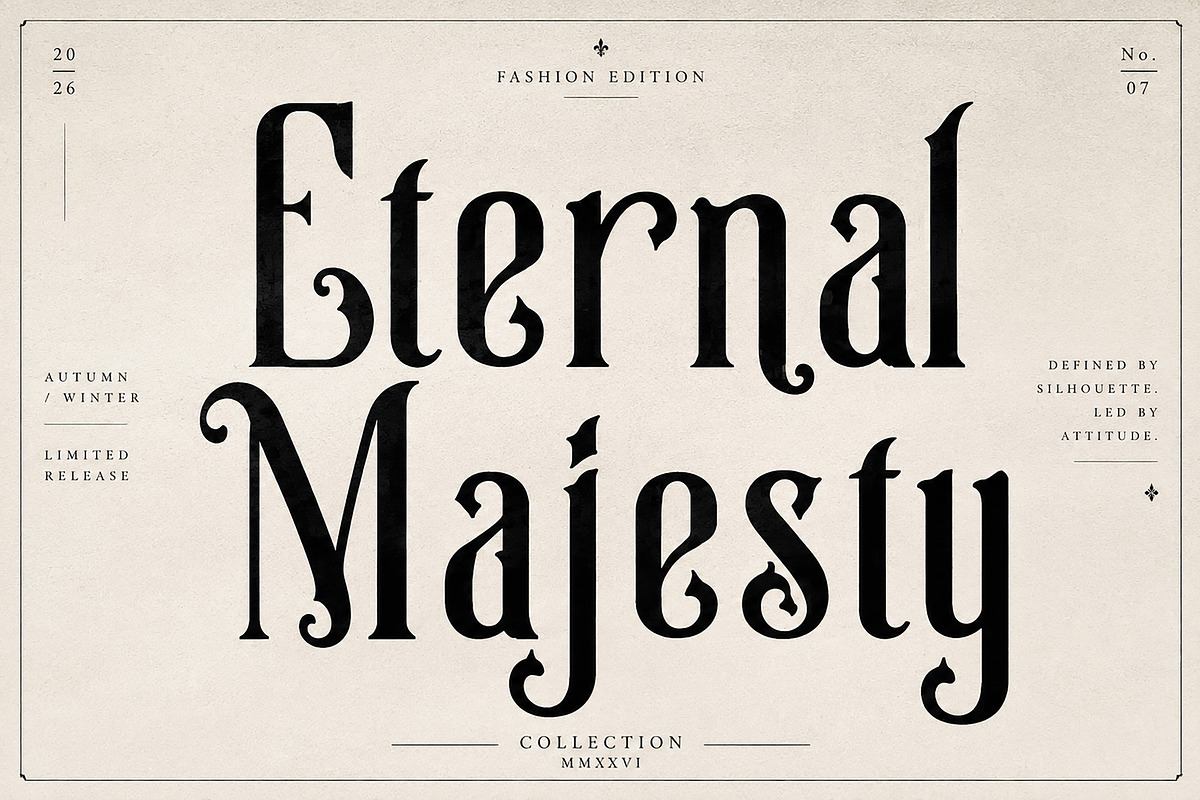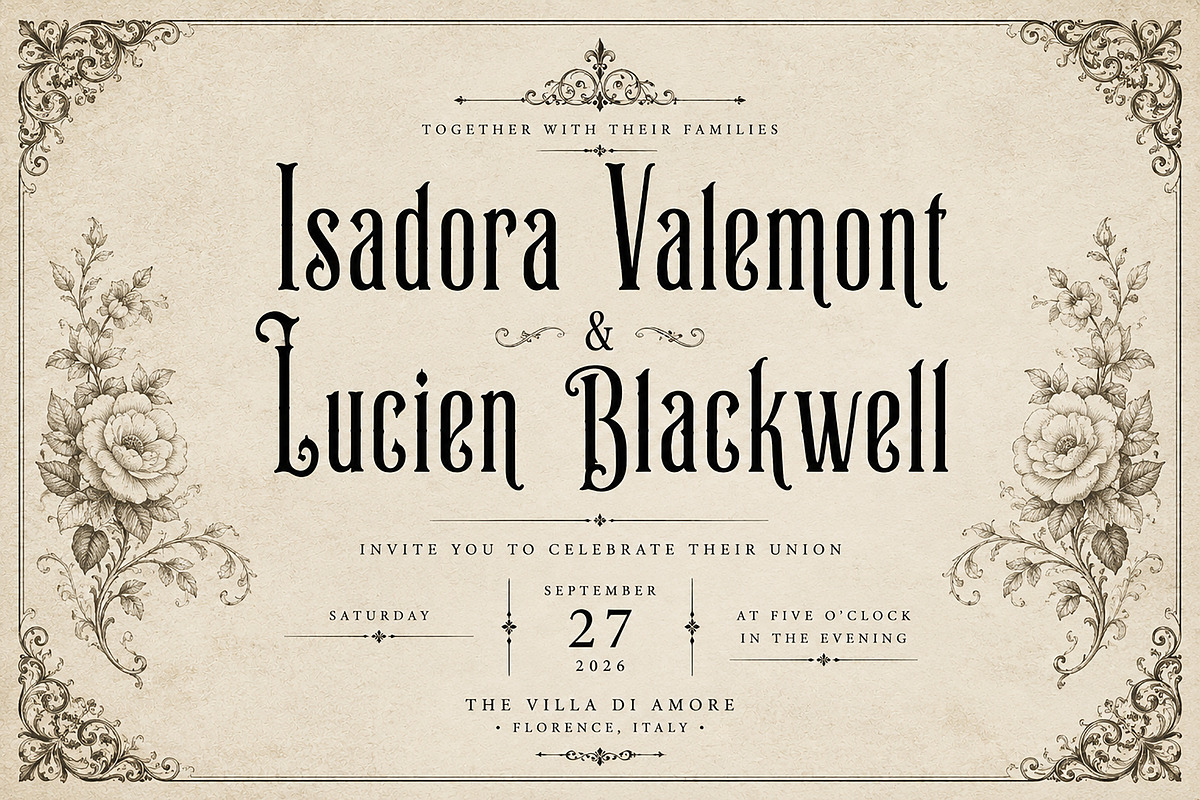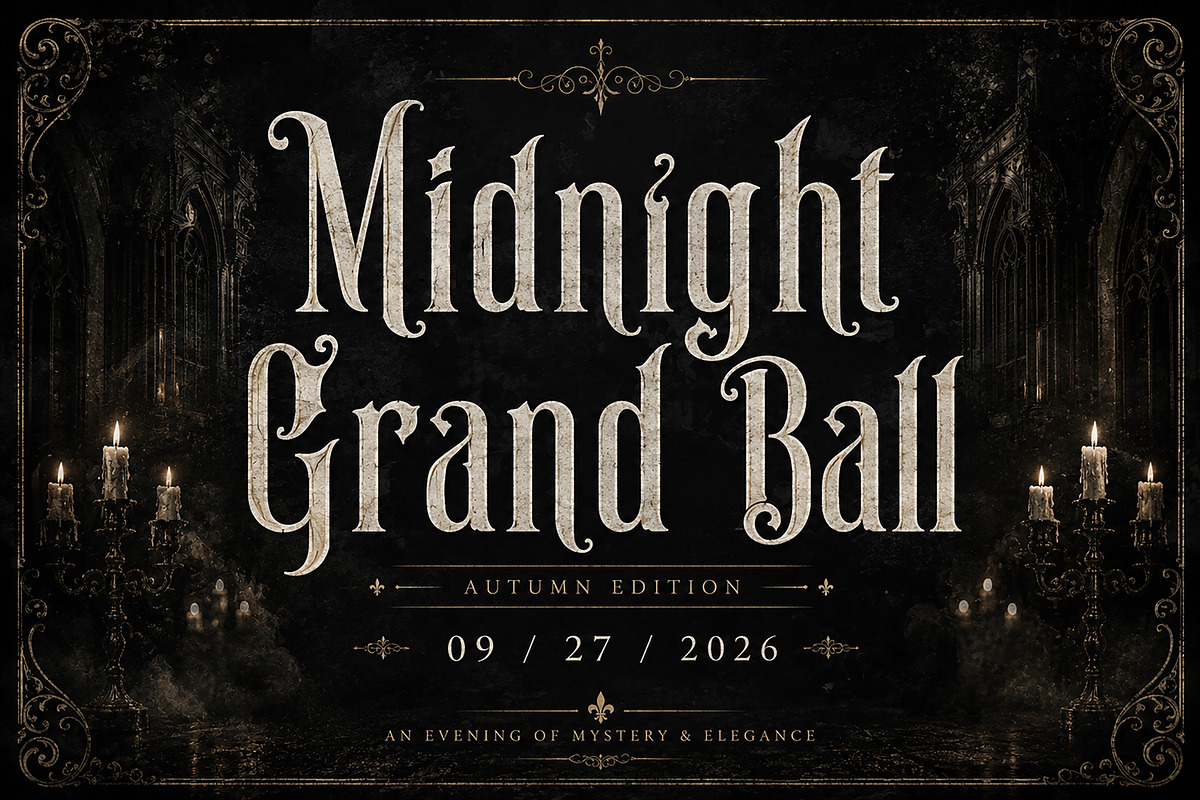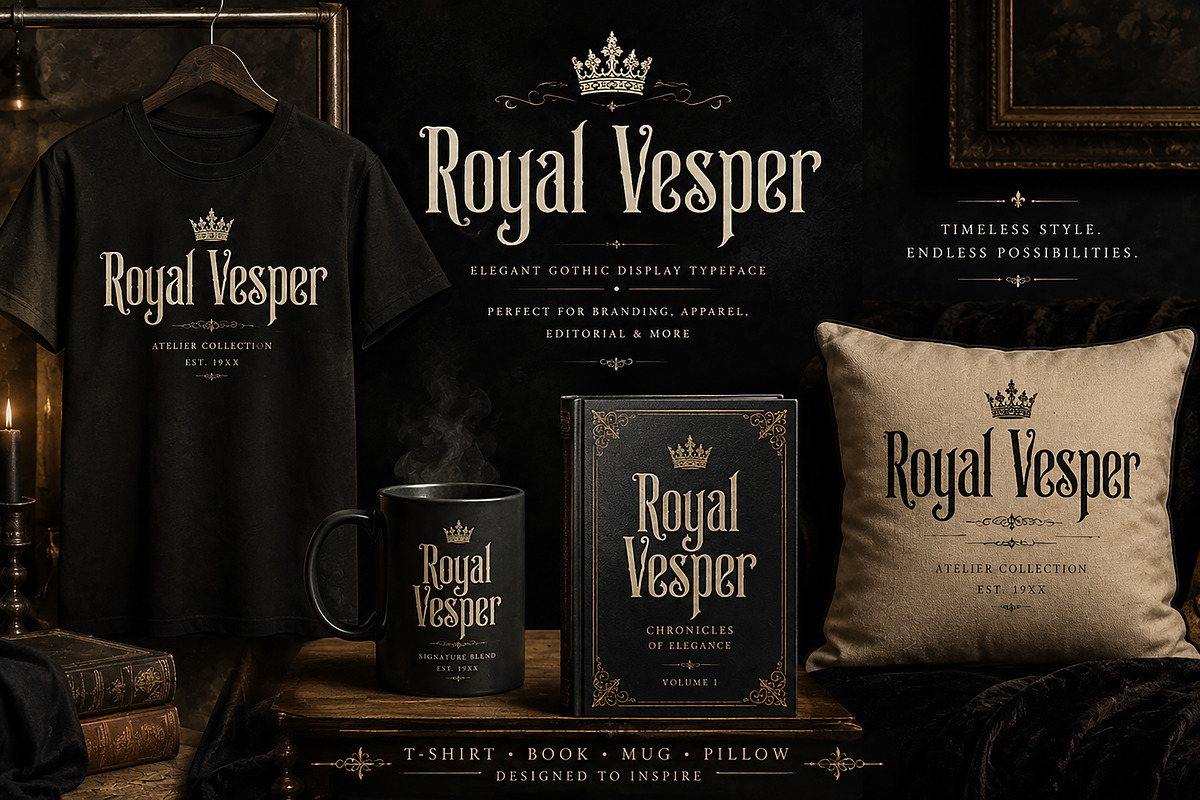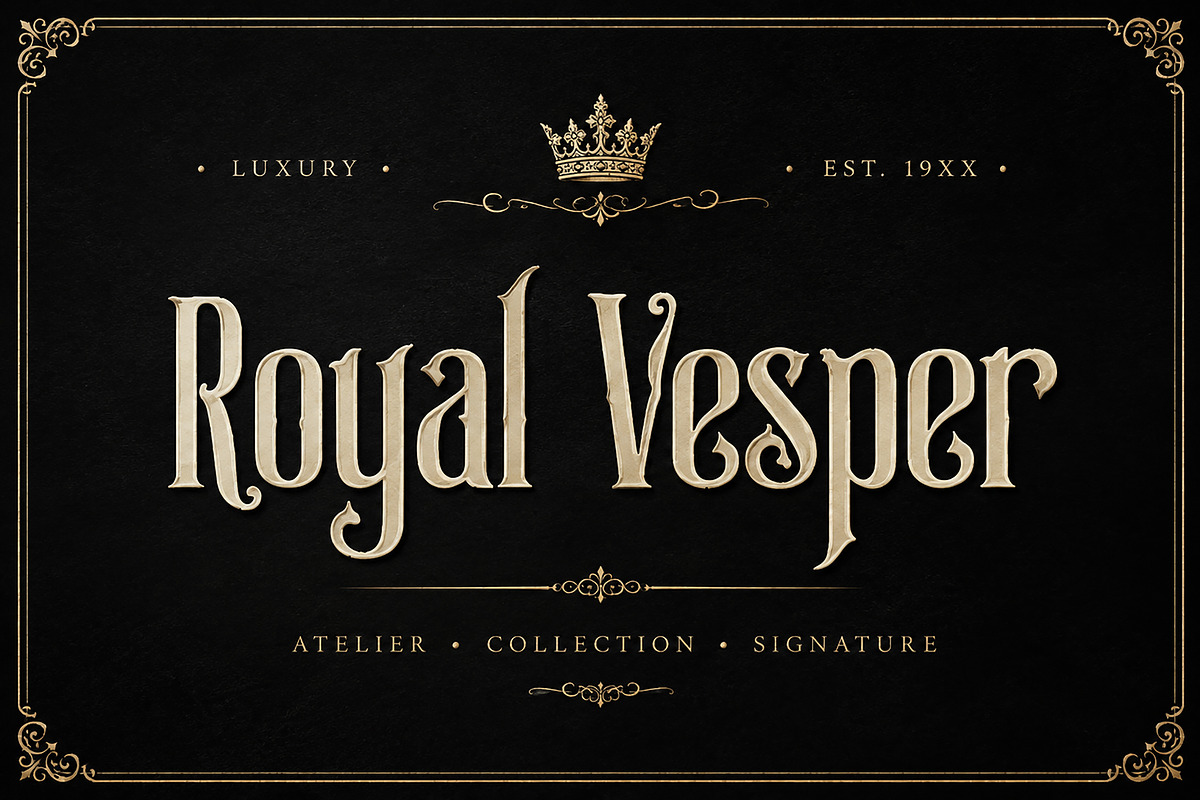
Royal Vesper
Royal Vesper is an elegant Gothic display typeface that blends dramatic medieval character with refined, aristocratic sophistication. Its distinctive letterforms feature tall, ornamental shapes, graceful curves, and striking details that make every word feel bold, mysterious, and luxurious.
Designed to make an impact, Royal Vesper is perfect for projects that need a sophisticated Gothic aesthetic—from luxury branding and fashion editorials to wedding stationery, invitations, posters, packaging, book covers, album artwork, and apparel designs.
Whether you are creating a dark romantic identity, an exclusive fashion label, a medieval-inspired design, or a dramatic editorial composition, Royal Vesper brings a timeless and distinctive visual presence to your work.
Luxury & Boutique Branding
Gothic Logos & Brand Identity
Fashion & Editorial Design
Wedding Invitations & Stationery
Event & Gothic Posters
Book Covers & Titles
Album & Music Artwork
Apparel & T-Shirt Designs
Product Packaging & Labels
Vintage & Medieval Designs
Romantic & Dark-Themed Projects
Social Media & Promotional Graphics
Elegant Gothic / Blackletter-inspired display style
Dramatic and sophisticated letterforms
Perfect for headlines, logos, titles, and statement typography
Suitable for both dark and luxurious design aesthetics
Ideal for print and digital creative projects
Font Type: Display Typeface